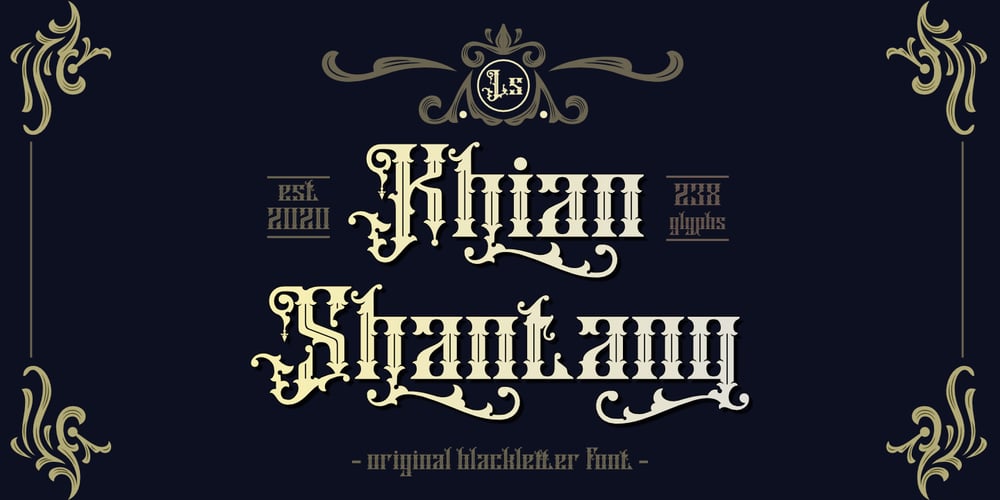
Khian Shantang
Khian Shantang font
Khian Shantang Font Family was designed by Studio LetterStock and published by LetterStock. Khian Shantang contains 1 styles and family package options. **Khian shantang Font**This pair was inspired by the vintage motorbike poster design that i saw on some coffee shop, It was crafted by hand specially to add natural handmade feeling in its brand identity than i make it clean with pentool.**Opentype features**Khian shantang font has 238 character set included Khian shantang Font is very good looking in logo, labels, t-shirt prints, product packaging, invitations, advertising and others.**What includes*** Multilingual support (Western European characters).This fonts works with folowing languages: Afrikaans, Albanian, Asu, Basque, Bemba, Bena, Chiga, Cornish, Danish, English, Estonian, Filipino, Finnish, French, Friulian, Galician, German, Gusii, Indonesian, Irish, Italian, Kabuverdianu, Kalenjin, Kinyarwanda, Low German, Luo, Luxembourgish, Luyia, Machame, Makhuwa-Meetto, Makonde, Malagasy, Malay, Manx, Morisyen, North Ndebele, Norwegian Bokmål, Norwegian Nynorsk, Nyankole, Oromo, Portuguese, Romansh, Rombo, Rundi, Rwa, Samburu, Sango, Sangu, Scottish Gaelic, Sena, Shambala, Shona, Soga, Somali, Spanish, Swahili, Swedish, Swiss German, Taita, Teso, Vunjo, Zulu.